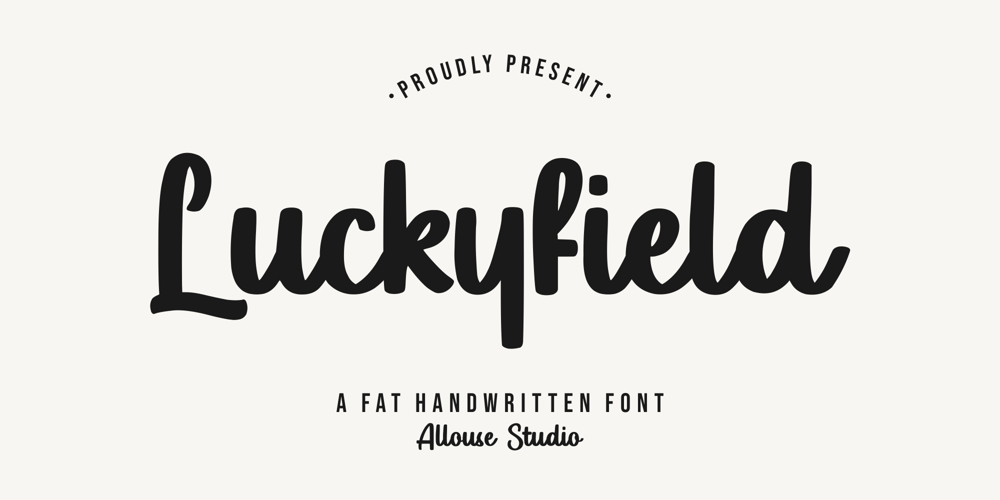
Luckyfield
Luckyfield font
Luckyfield Font Family was designed by Fachrizal Yusuf and published by Allouse Studio. Luckyfield contains 1 styles and family package options. Proudly Presenting, Luckyfield a Fat Handwritten Font.Luckyfield is perfect for any titles, logo, product packaging, branding project, megazine, social media, wedding, or just used to express words above the background.Luckyfield also come with Multi-Lingual Support.Enjoy the font, feel free to comment or feedback, send me PM or email. Thank You!